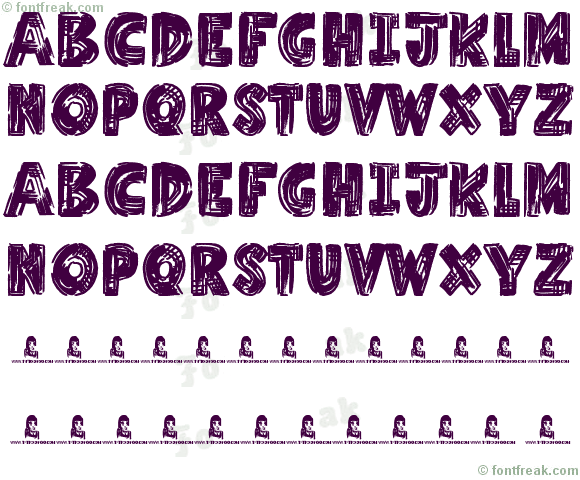
Millennium
The Millennium font, designed by Jonathan S. Harris, falls under the category of decorative typefaces. Its striking visual characteristics are marked by bold, irregular strokes that evoke a sense of playfulness and creativity. The varying stroke weights and contrasting elements lend a unique texture, giving it a handcrafted vibe. The spacing between characters is notably spacious, allowing for an airy feel that enhances readability while maintaining a distinctive personality.
This font is particularly well-suited for a variety of applications. Graphic designers may find it perfect for crafting eye-catching movie posters that require a bold statement. Small business owners can utilize the Millennium font for restaurant menus, effectively drawing attention to the dishes with its quirky aesthetic. Additionally, content creators looking to add a unique touch to their blogs or social media posts will benefit from its distinctive style. Wedding invitations that aim to stand out can also effectively incorporate this font, adding a modern twist to traditional designs.
The target audience for the Millennium font includes graphic designers, small business owners, and content creators who seek to elevate their projects with a font that breaks away from conventional designs. Its playful nature invites creativity and experimentation, making it an ideal choice for anyone looking to make a memorable impression.
In conclusion, the Millennium font stands out due to its unique blend of boldness and whimsy, making it a versatile choice for various creative endeavors. Whether you're looking to captivate an audience or simply add a touch of flair to your designs, the Millennium font free download offers an exciting opportunity to enhance your visual communication.